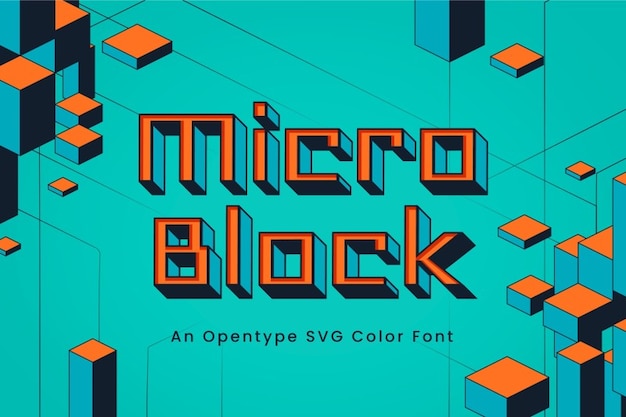
Micro Block
Micro Block Font
A font that's all about the bold and blocky. With a 3D twist and a geometrical edge, it's like the building blocks of typography. Perfect for designs that demand a strong, structured presence, this font is a creative powerhouse. Whether you're crafting a logo or a poster, "Micro Block" adds depth and dimension, ensuring your message stands out. It's a design tool that makes a big impact, one block at a time.